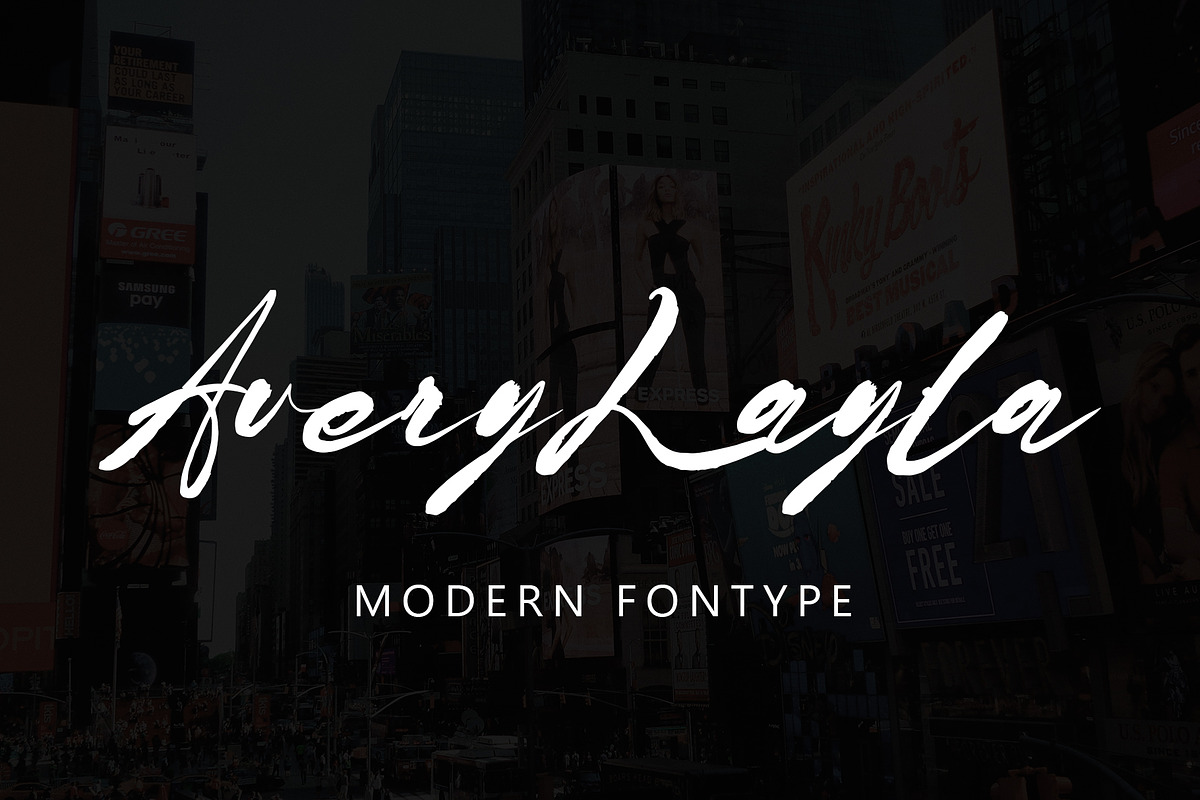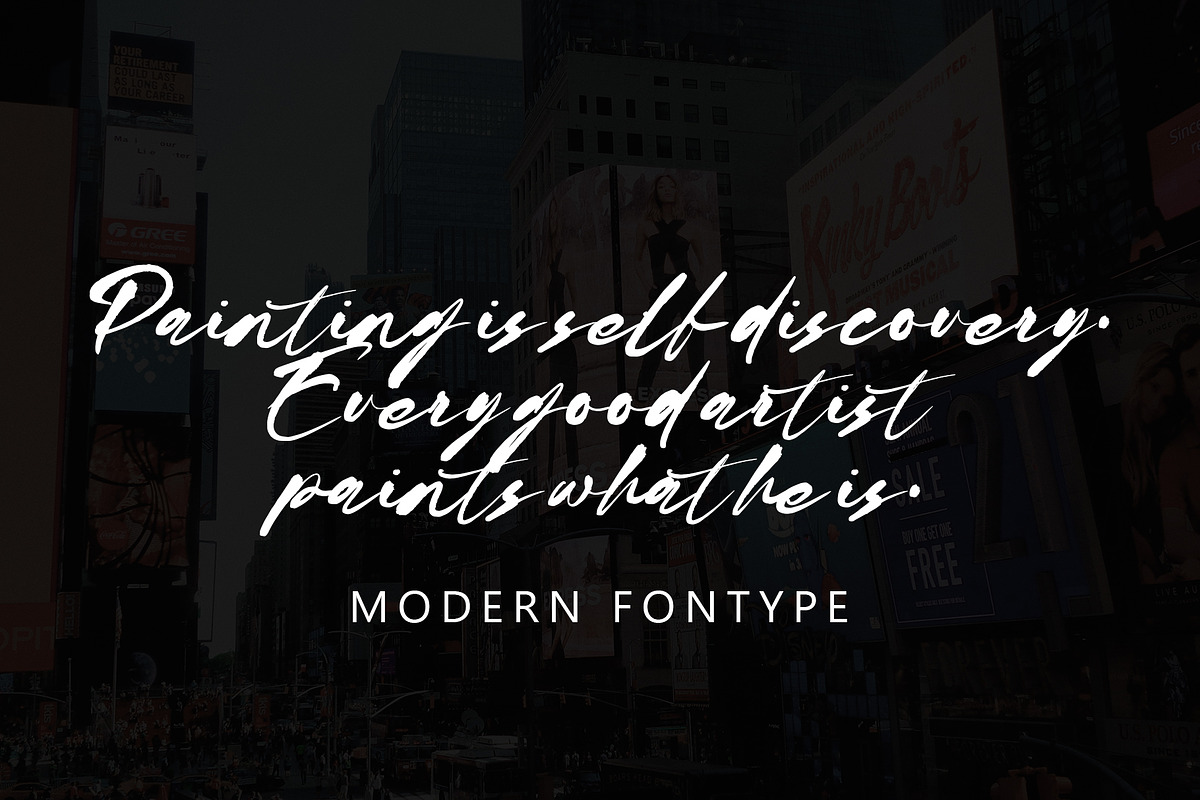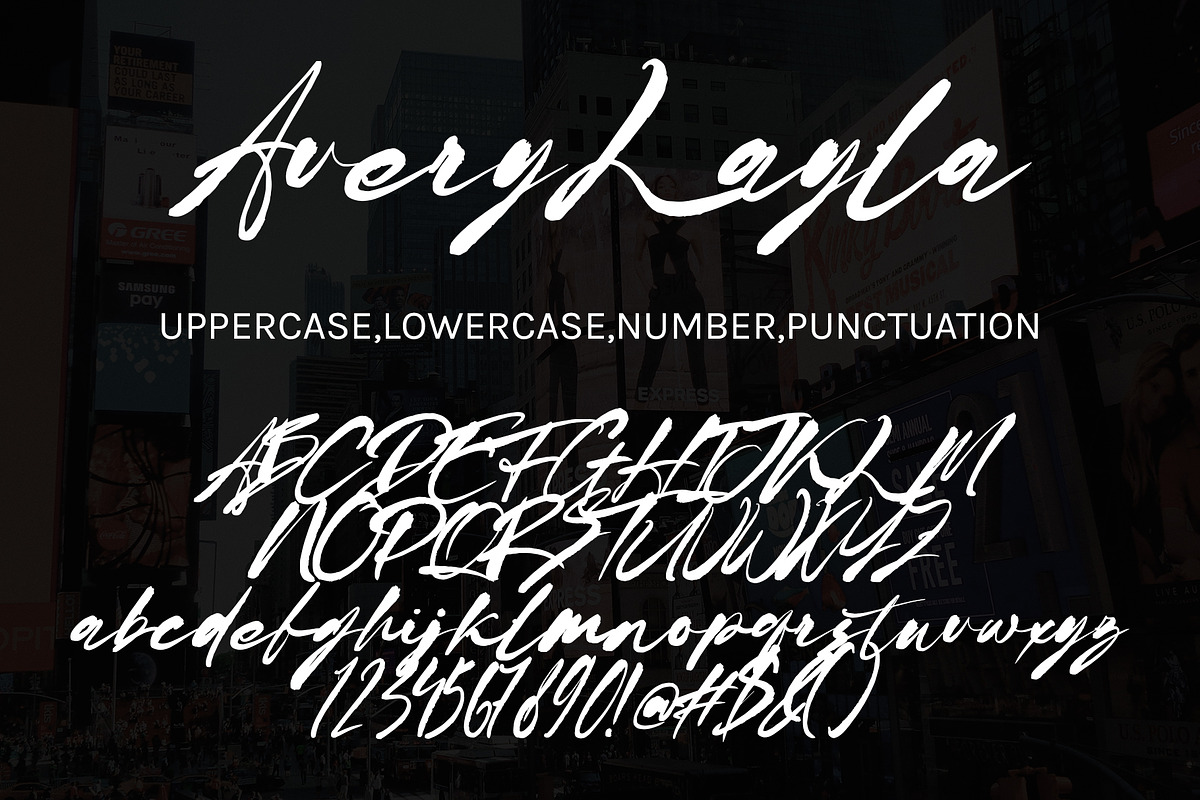
Avery Layla
Avery Layla with new style, this font will perfect for many different project ex: quotes, logo, blog header, poster, banding, letter, invitation, stationery, etc...